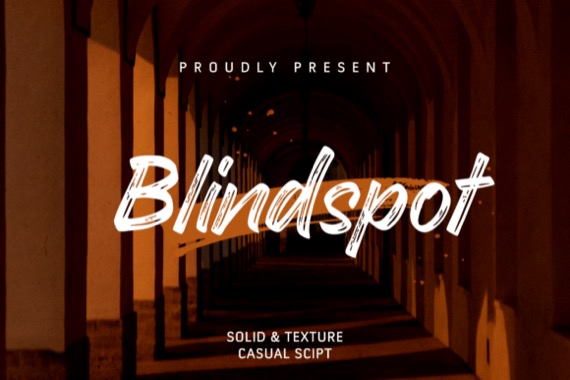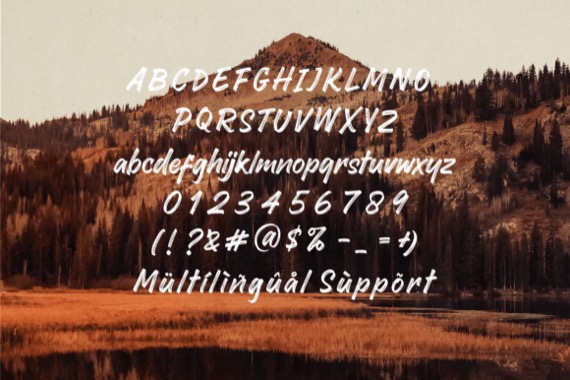
Blindspot is a chic and luxury casual brush script font that was created and shared by Andrie Nugrie. It embodies the spirit of hand-lettering. Its rough edges and natural imperfections, perfect for creating a handmade aesthetic. This font is ideal for a range of design projects, including posters, packaging, and social media graphics. With its distinctive and playful style.
Blindspot Brush Handwritten Font